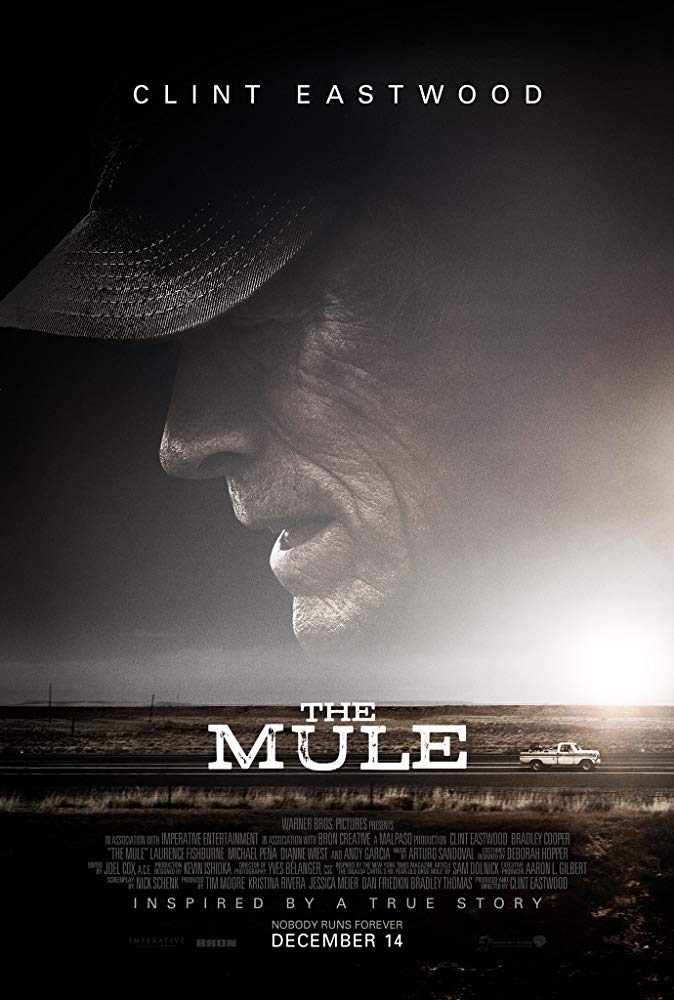
The Mule Font
CrimeThe Mule is a 2018 crime drama film directed by Clint Eastwood, who also stars as a 90-year-old man who becomes a drug mule for a Mexican cartel. The film is based on the true story of Leo Sharp.
The title of the film on the poster is presented in a distressed slab serif font called Stud, designed by Ray Larabie. You can view and download the font here.